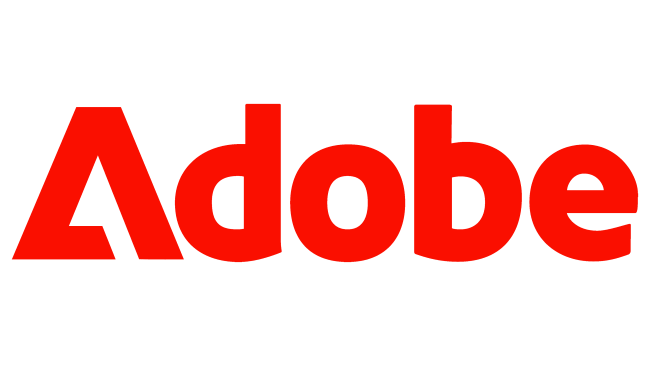
Adobe Font has always stood out to me because of how creative yet professional it feels. Whenever I see the company’s branding, I notice how much the Adobe logo font shapes its identity as a leader in design and digital innovation. In my opinion, the typeface reflects the perfect balance between creativity and reliability.
Adobe Font
The Adobe logo font is based on a customized version of Myriad Pro, a clean and versatile sans-serif typeface. I think this choice works perfectly because it communicates modernity, clarity, and adaptability—all qualities that define Adobe as a brand. From my analysis, the Adobe logo font looks consistent across digital platforms, software packaging, and corporate materials, reinforcing Adobe’s global presence.
Compared to other tech companies, Adobe Font feels more creative and design-focused. I believe that’s why it resonates so strongly with creative professionals worldwide. To me, Adobe Font proves that the right logo font can inspire trust, creativity, and innovation at the same time.